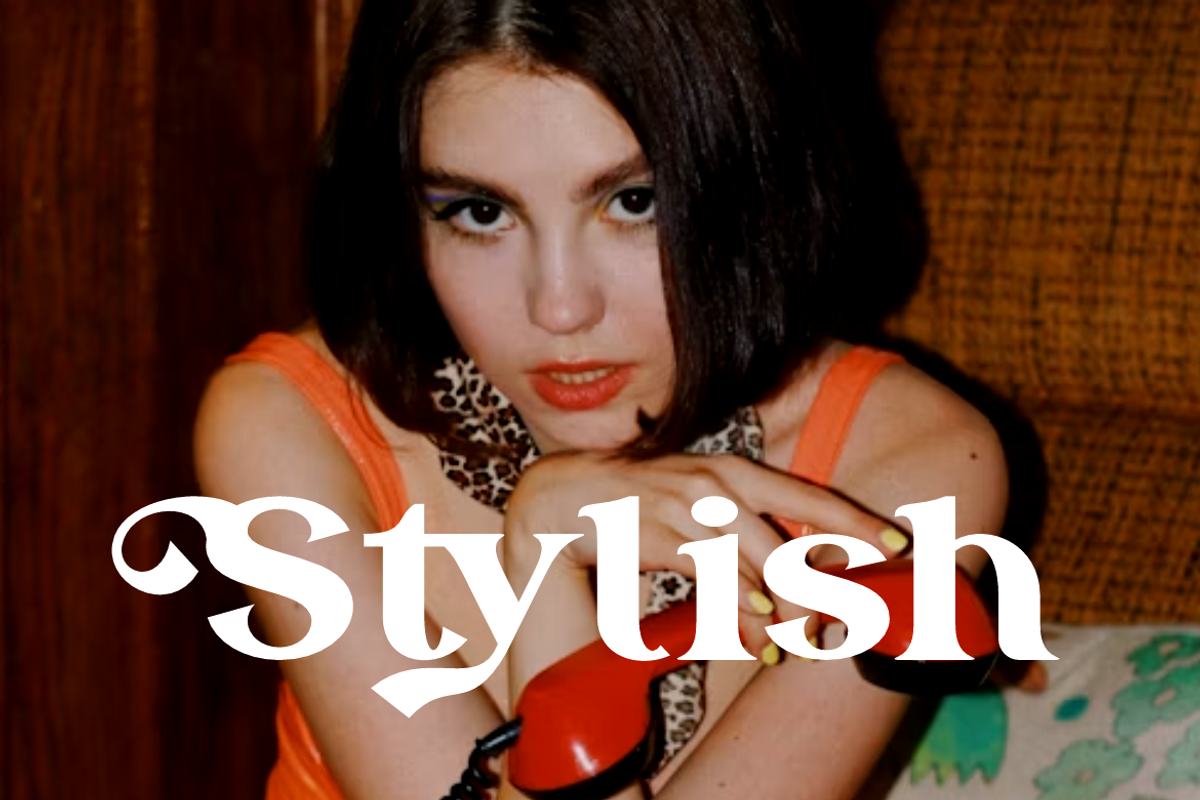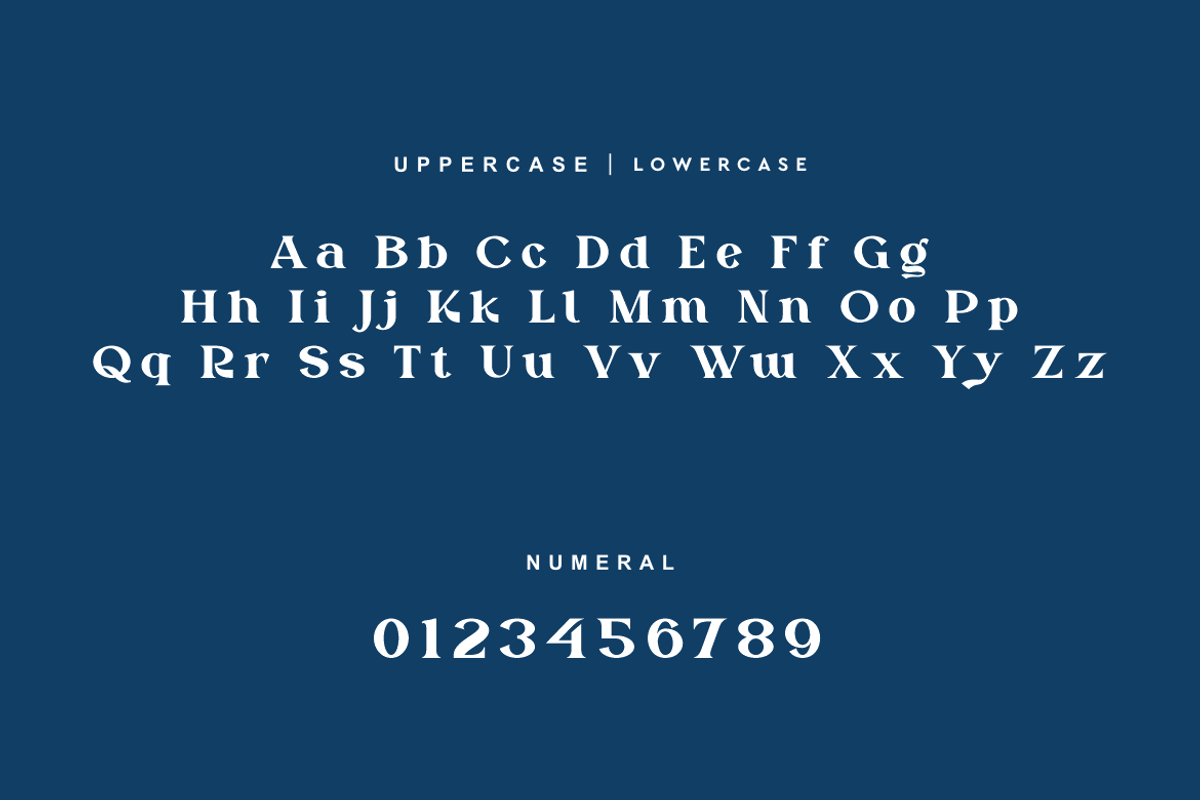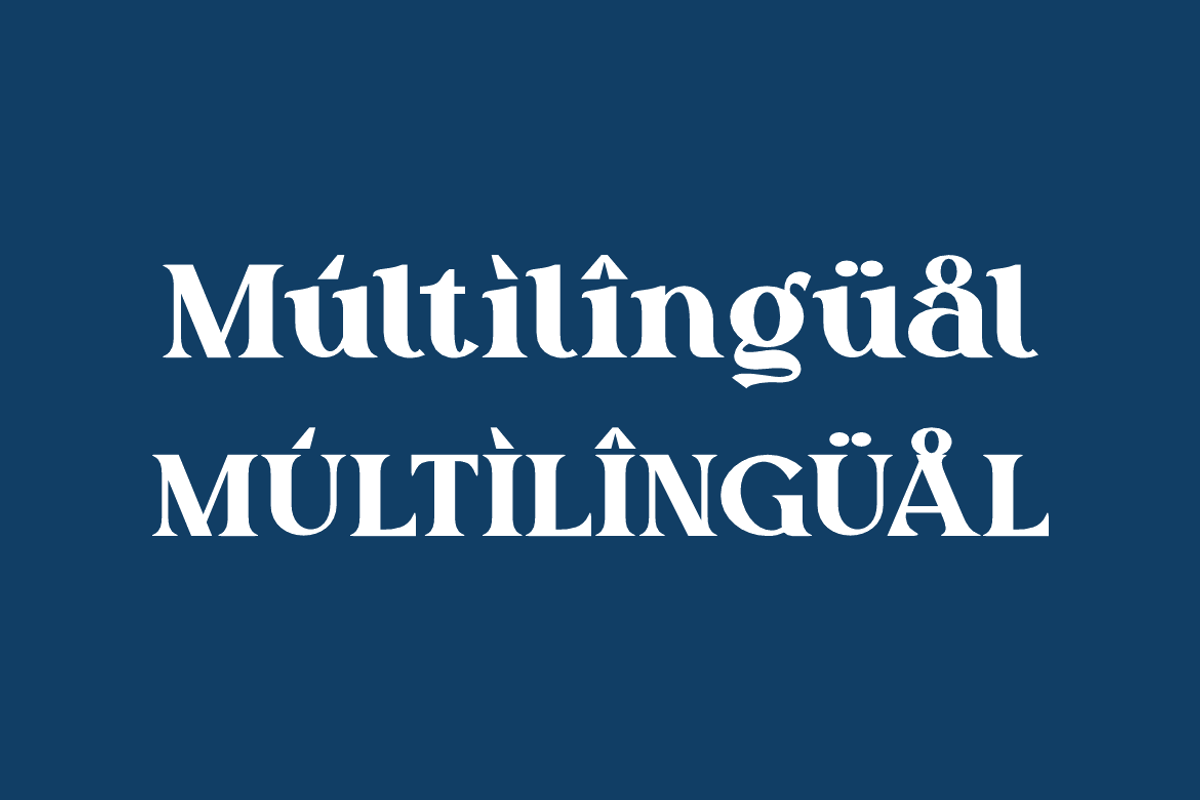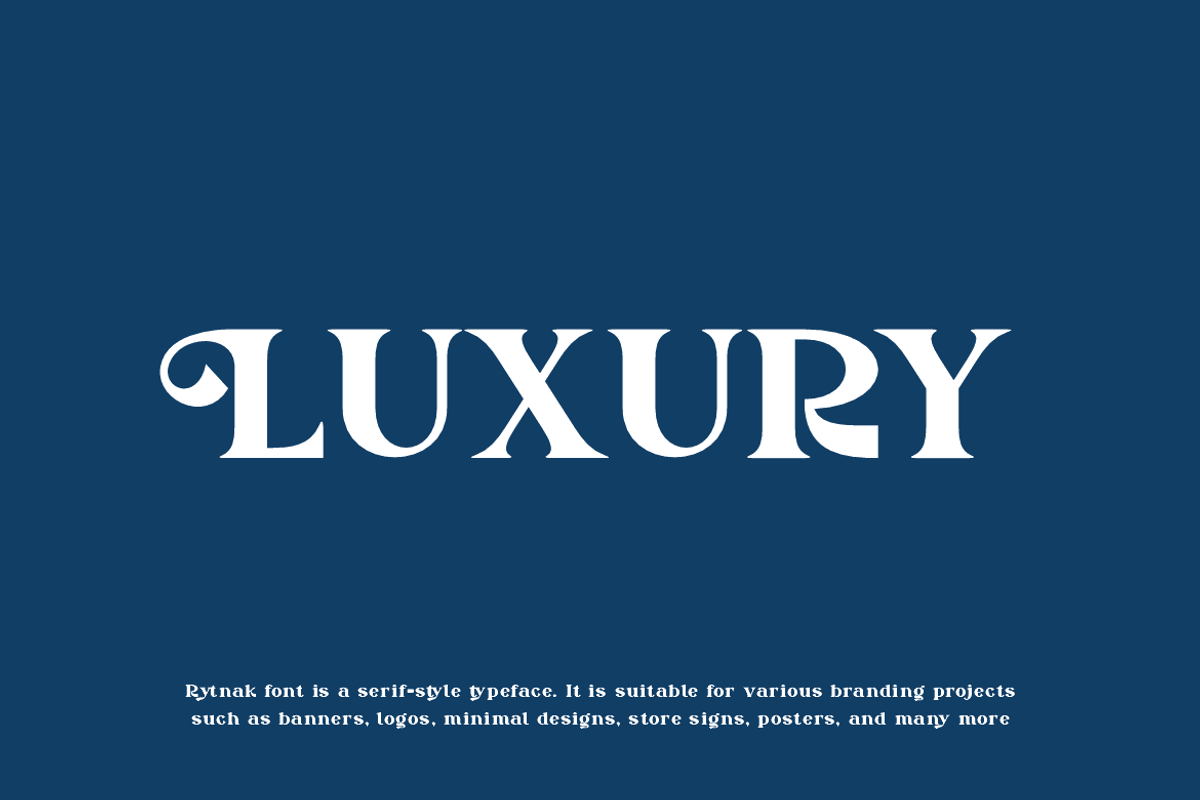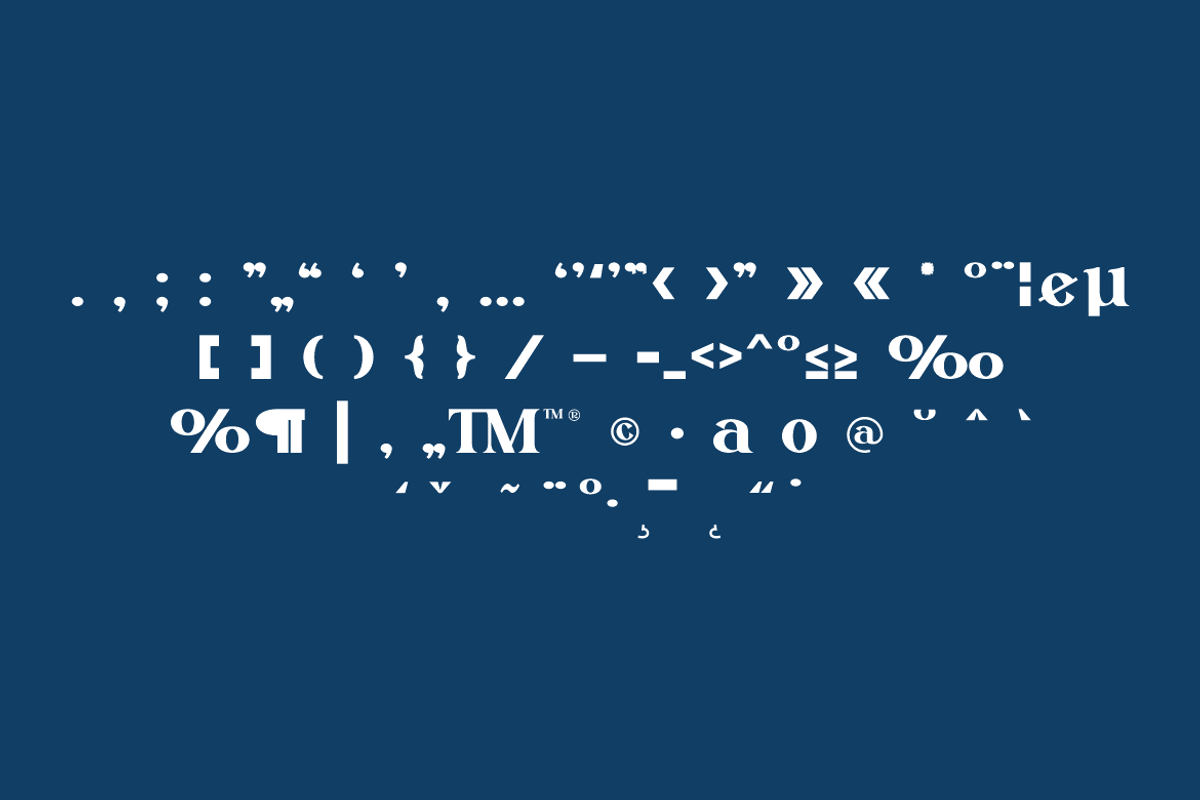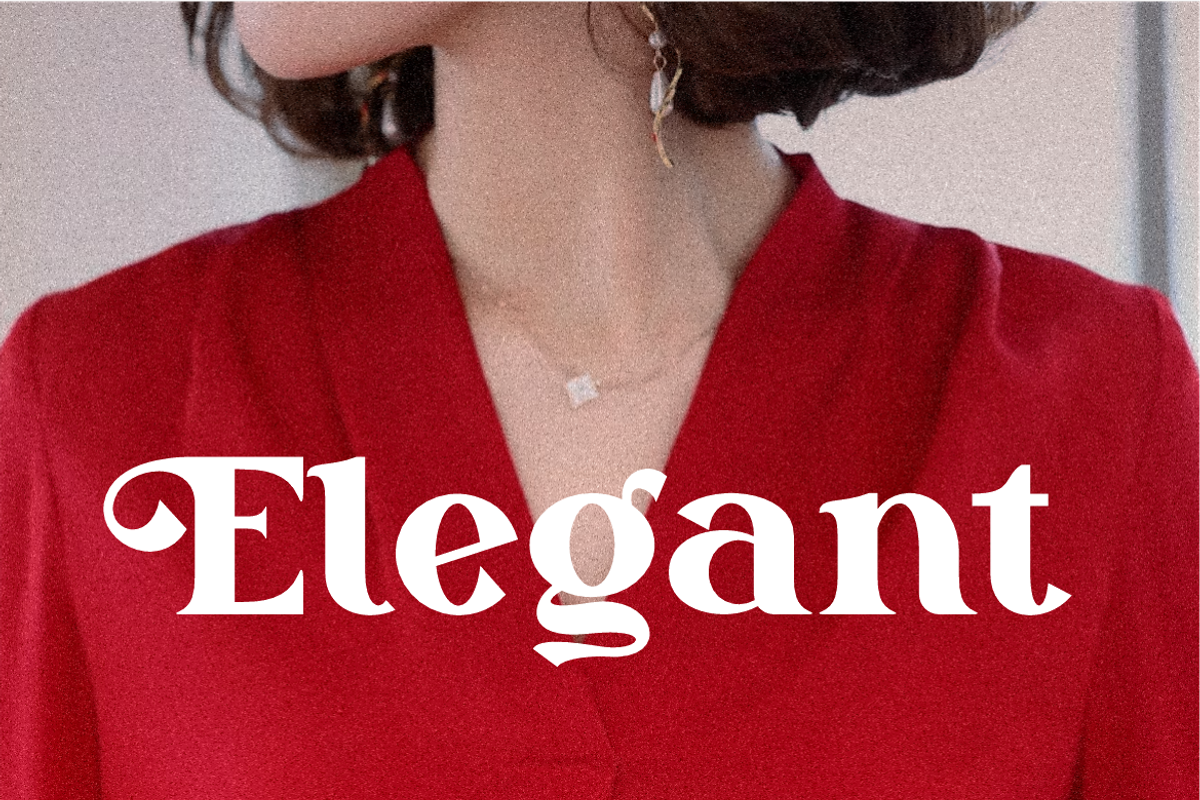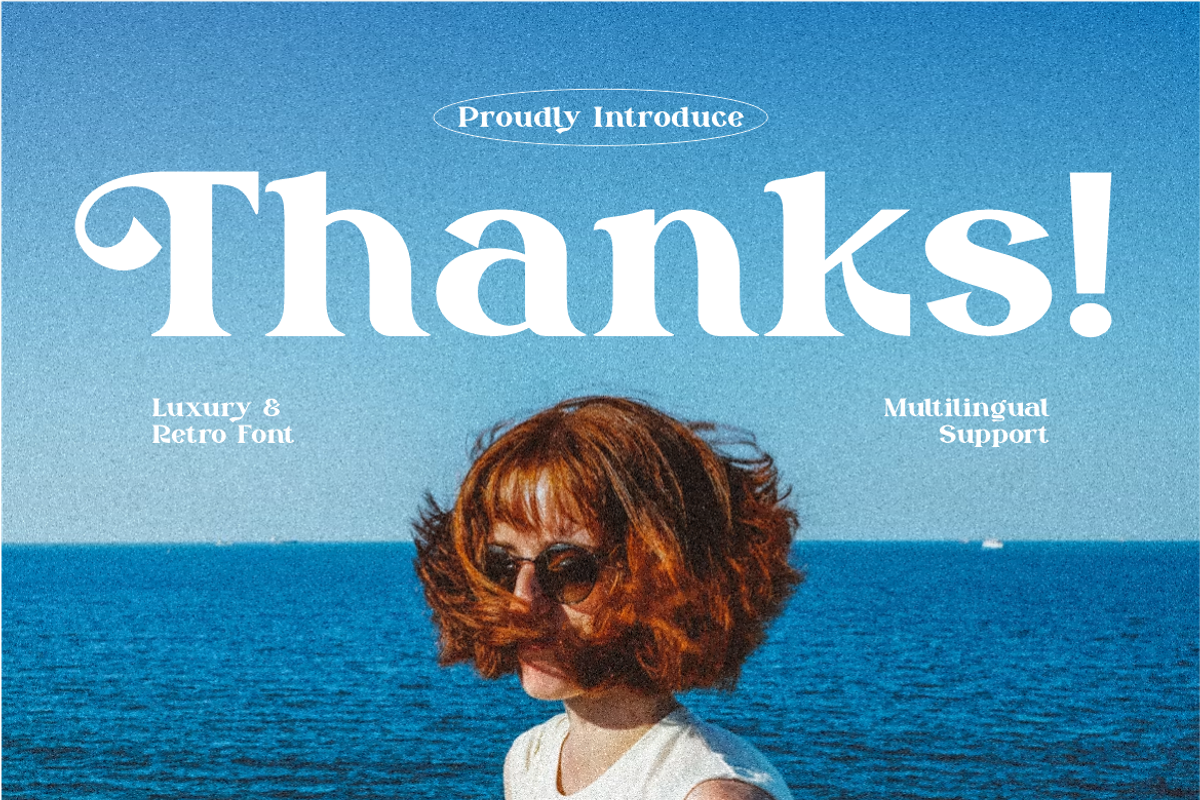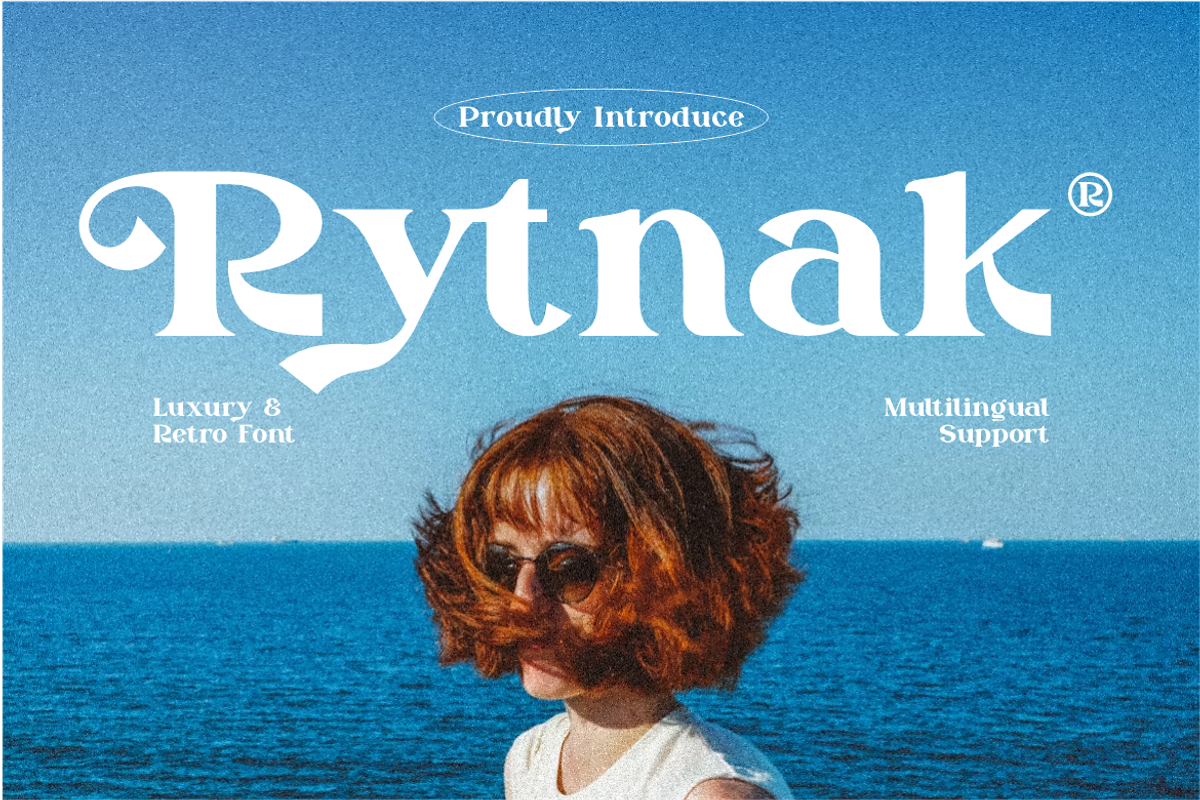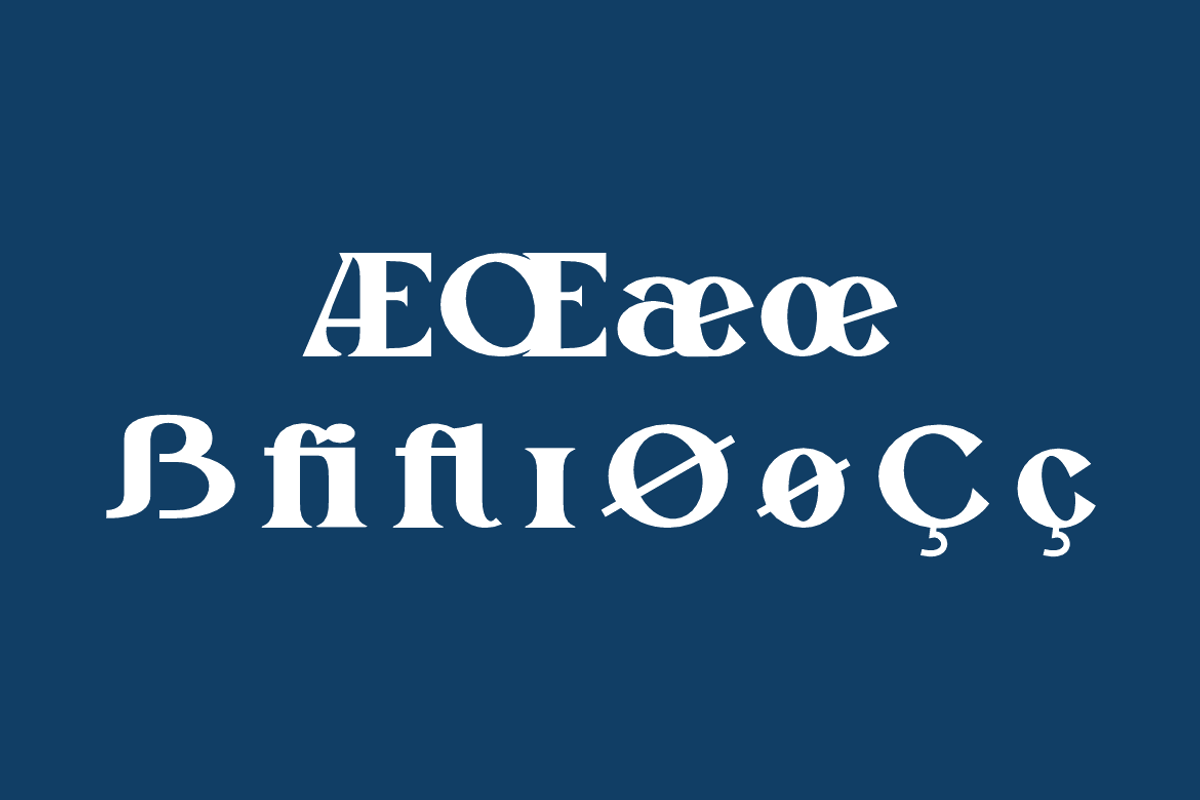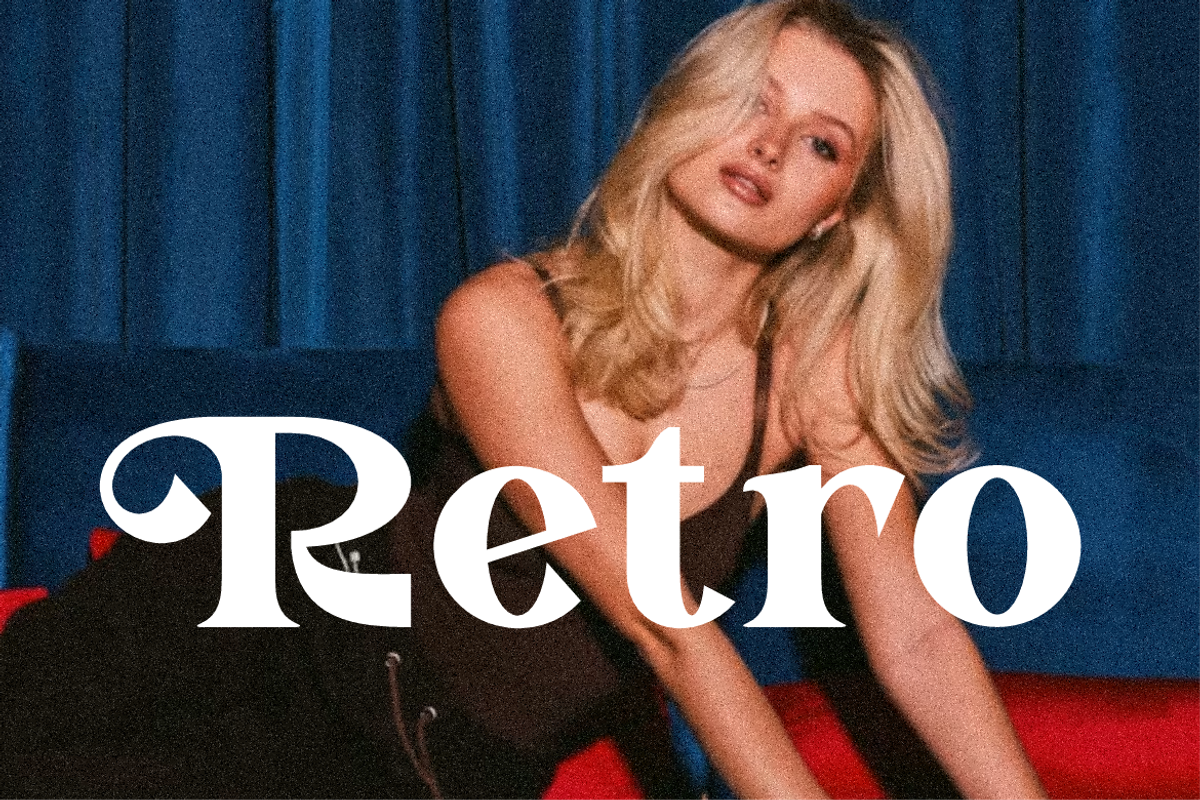
Rytnak - Luxury Retro Font
Rytnak Font is a serif and authentic display typeface.
It’s perfect for various branding projects such as logos, modern designs,
and more. This font stands out beautifully in a wide range of contexts.